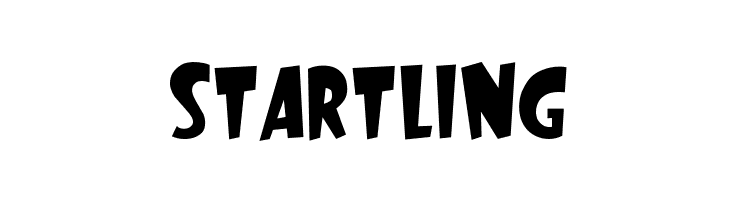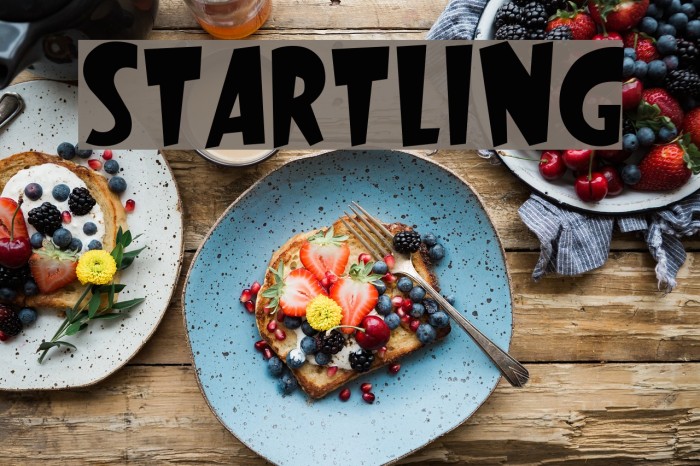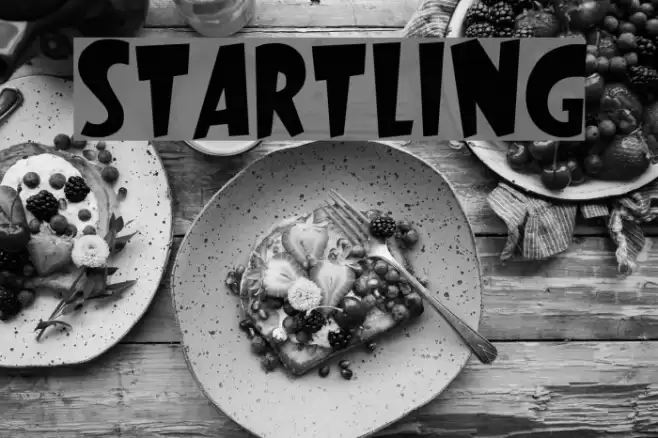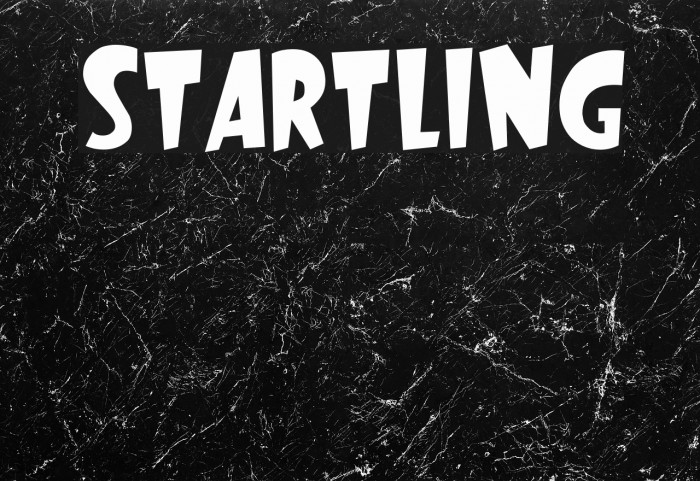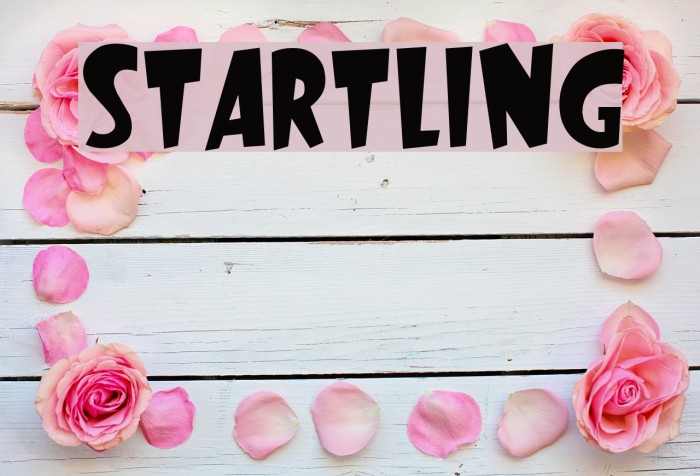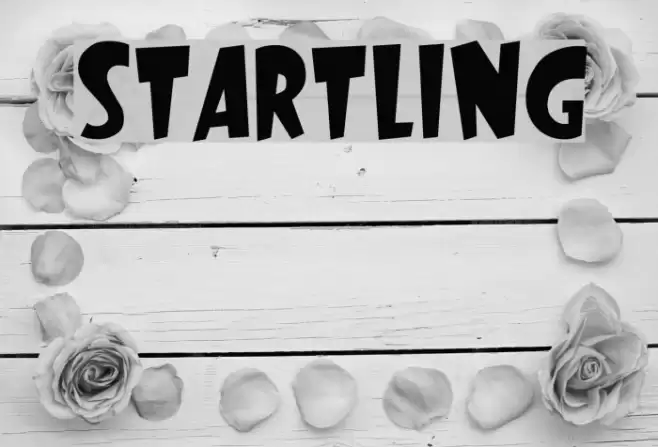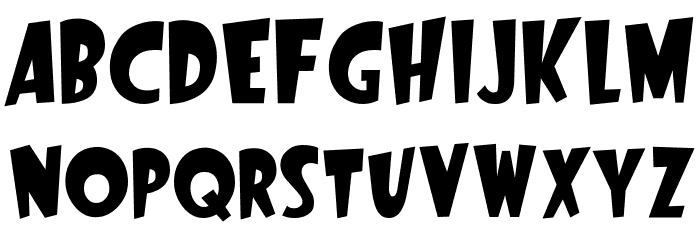
Startling Font
| Style général | Playful, Comic |
| Cas d'utilisation | Headlines, Posters, Branding |
| Projets proposés | Ideal for children's books, comic strips, playful branding, and eye-catching posters. |